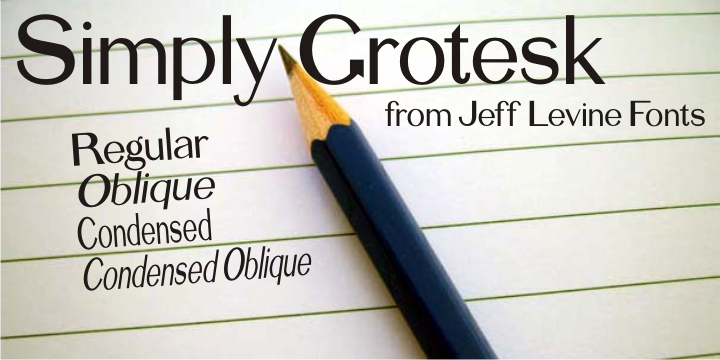
Designed by Jeff Levine, Simply Grotesk JNL is a display font family. This typeface has four styles and was published by Jeff Levine Fonts.
Up until the advent of vinyl plotters, computers and a myriad of other typesetting and printing changes the world has experienced over the past few decades, the art of hand lettering flourished.
An early 1900s book on show card writing displayed a nice example of a Grotesk typeface (a popular style of san serif of the time). This has been redrawn digitally as Simply Grotesk JNL and is available in four varieties ñ regular, oblique, condensed and condensed oblique.